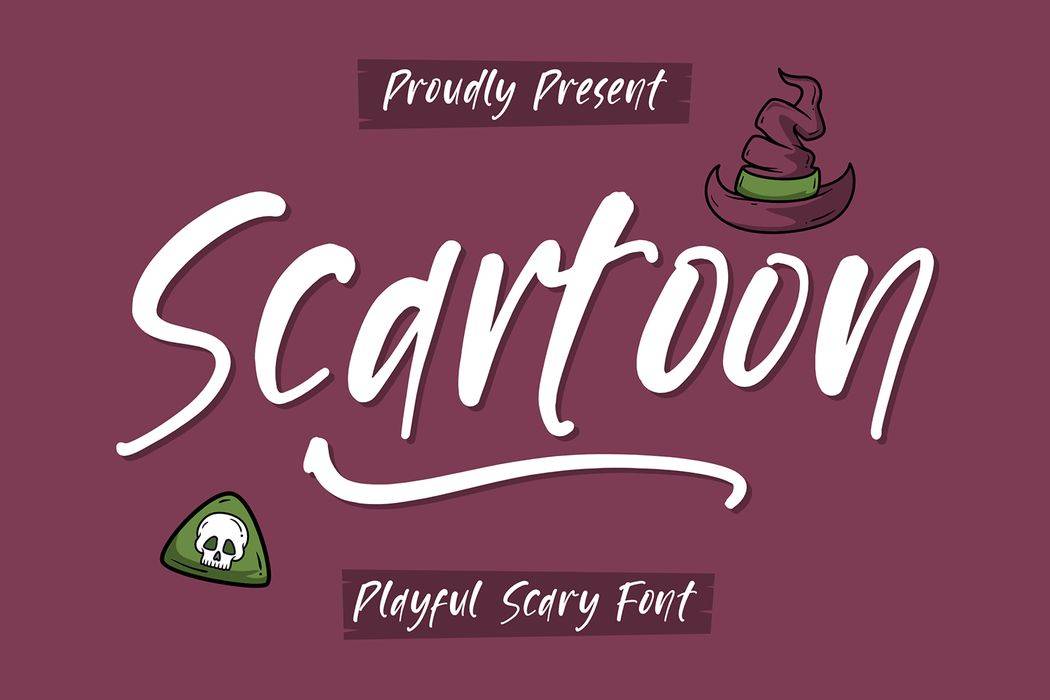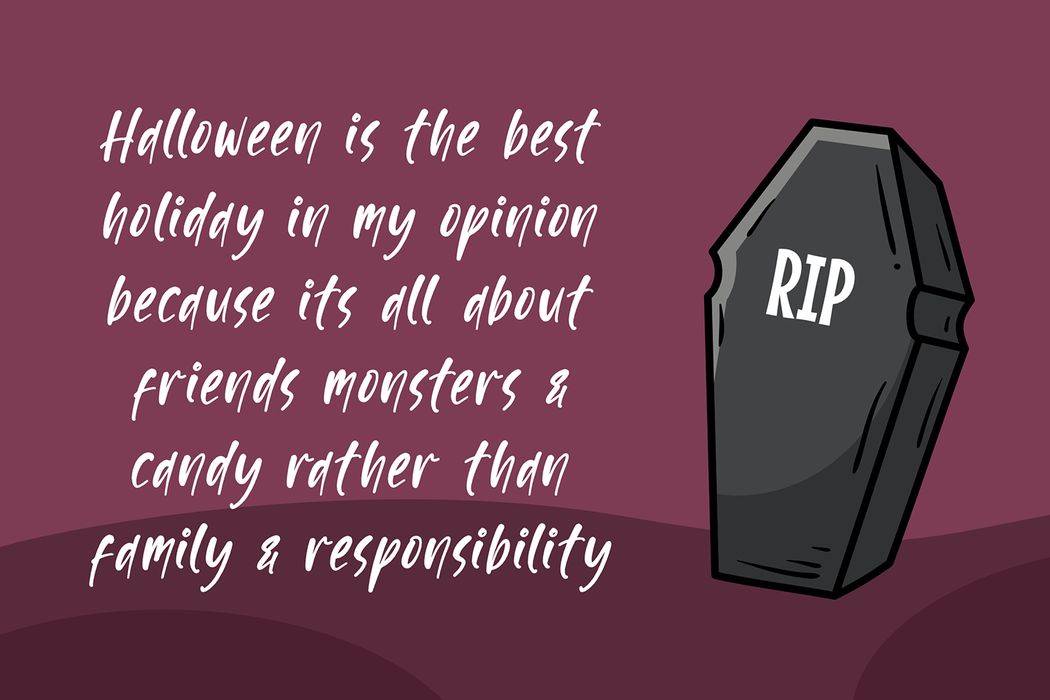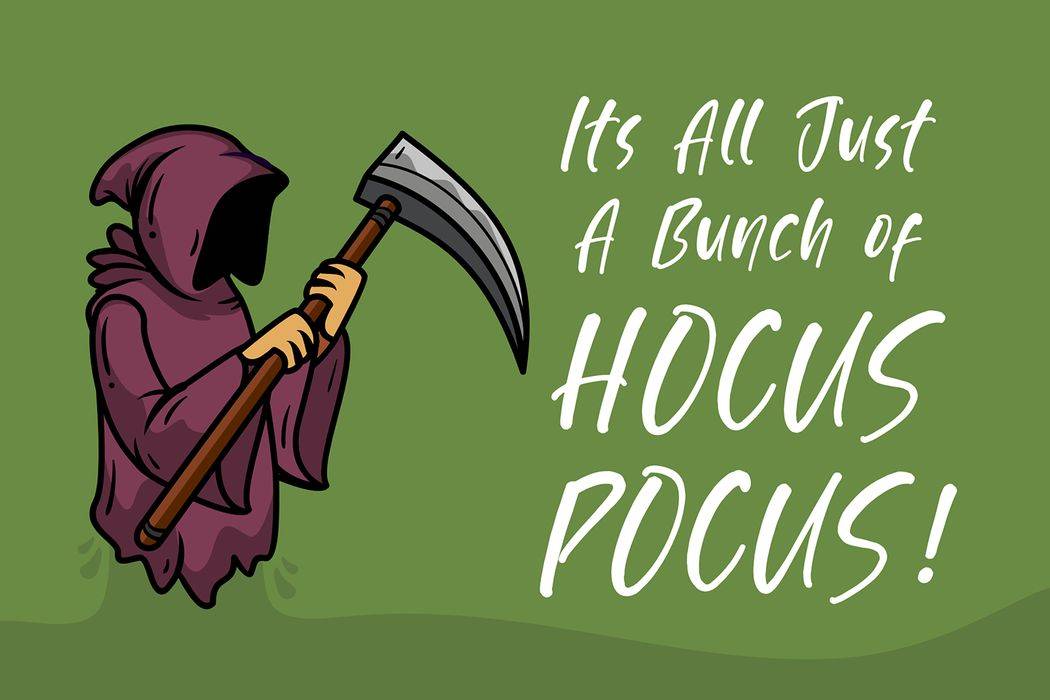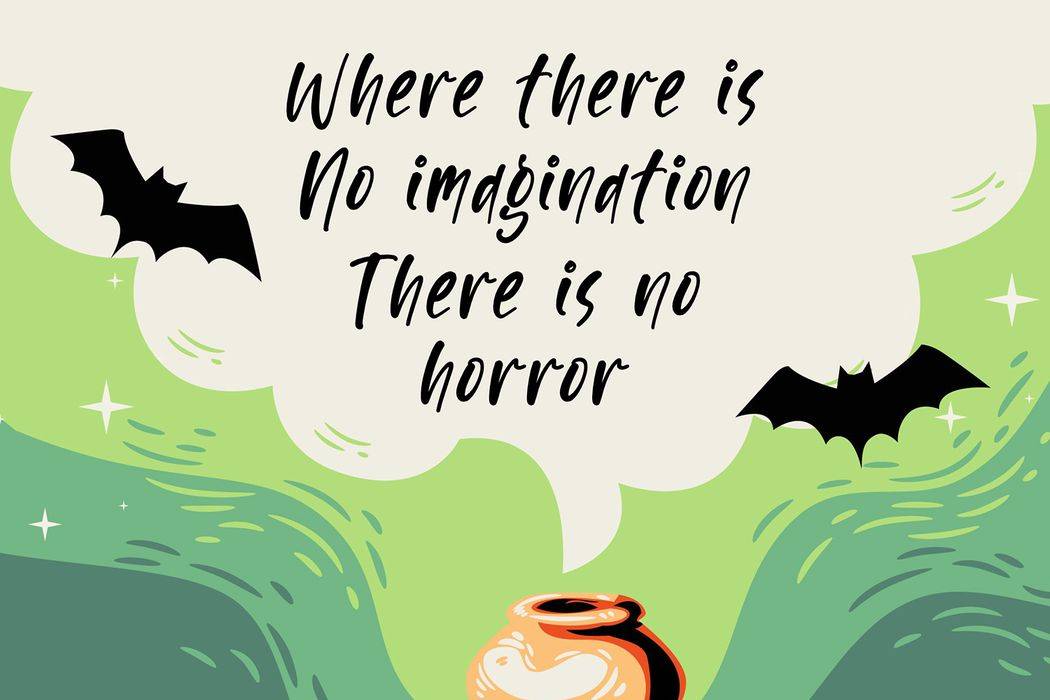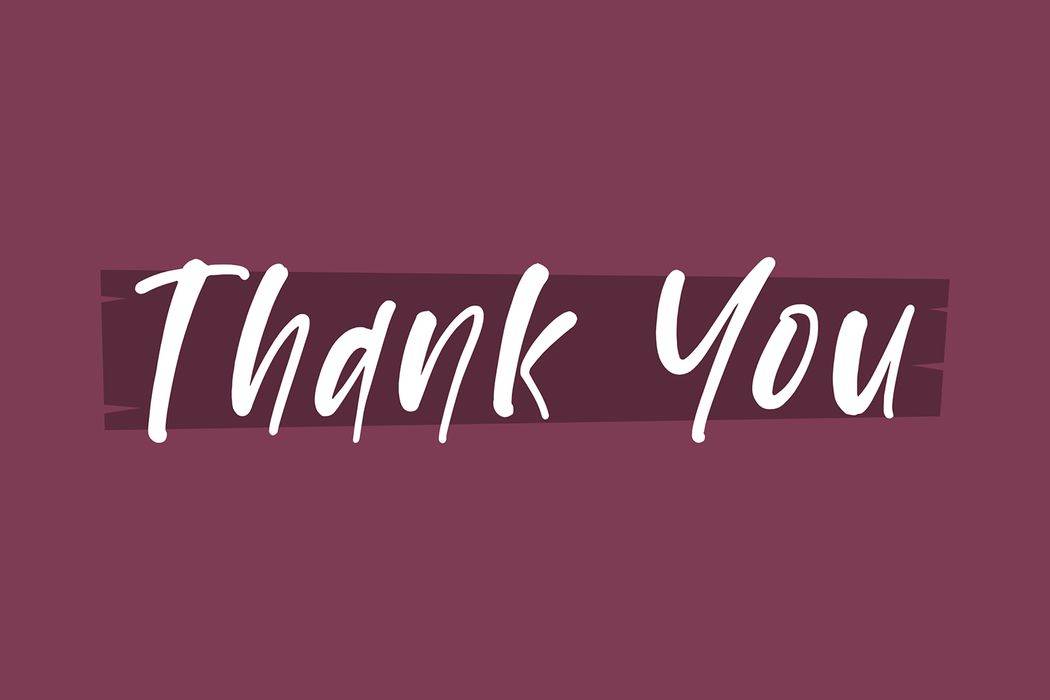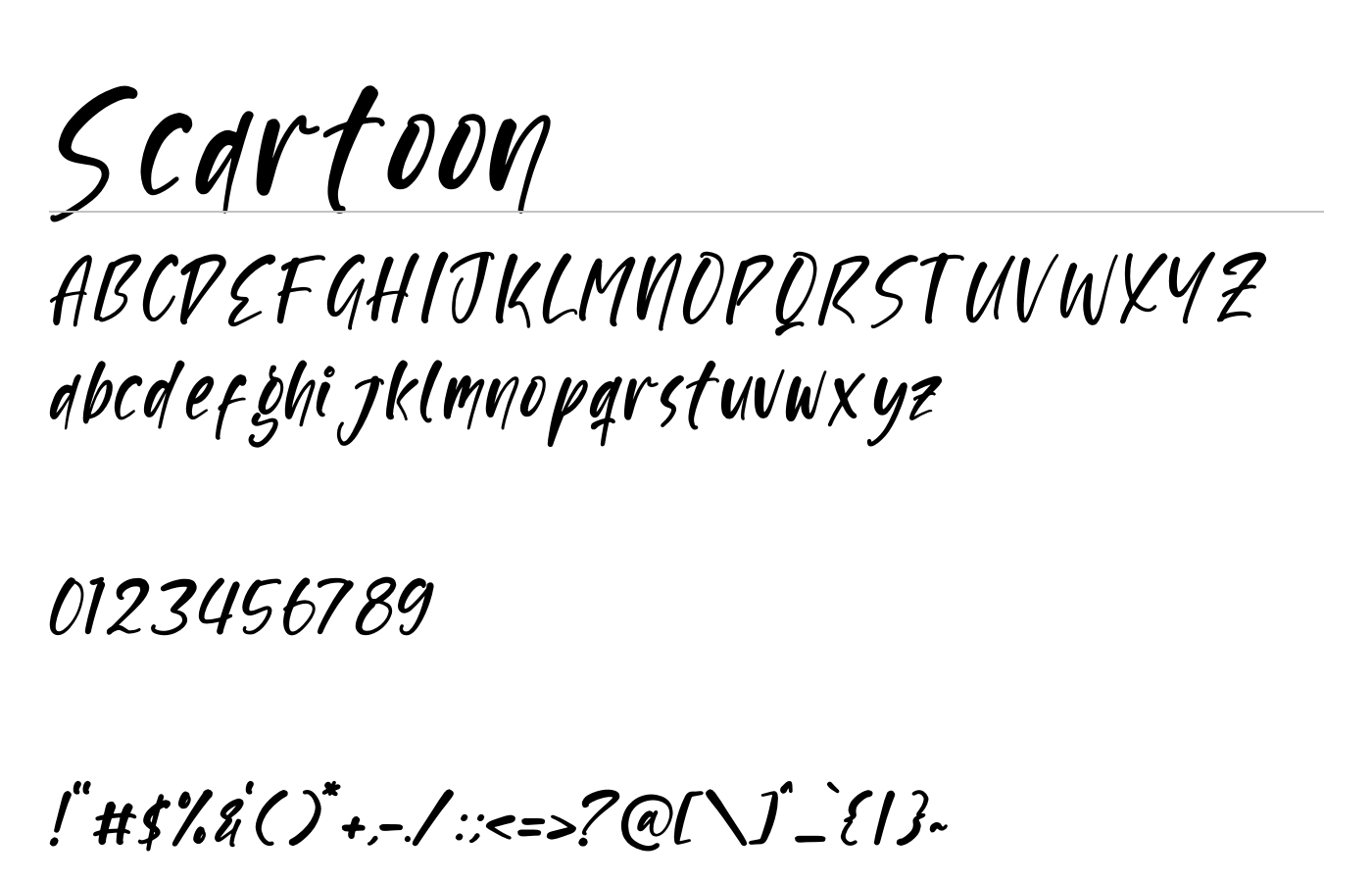
Scartoon is a playful and lively handwritten script font with a casual, brush-like style that brings energy and charm to any design. Its tall, slightly condensed letterforms with varied stroke widths give it a dynamic, informal appeal perfect for creative projects, children’s materials, or brands seeking a friendly, approachable vibe. This font works beautifully in headlines, logos, and packaging where a personal, artistic touch is desired.
Scartoon Font